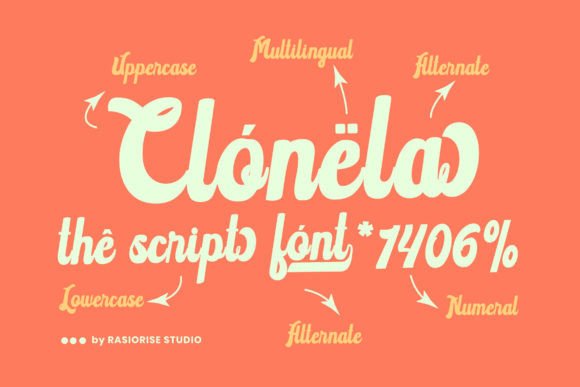
Introducing Clonela Font: The Perfect Retro Script Font for Elegant Wedding Designs
When it comes to designing elegant and romantic wedding invitations, RSVP cards, and thank-you notes, the right font can make all the difference. That’s where Clonela Font comes in – a beautiful retro script font that’s perfect for creating stunning wedding designs. In this article, we’ll take a closer look at Clonela Font, its features, and how you can use it to create breathtaking wedding designs.
What is Clonela Font?
Clonela Font is a retro script font that’s inspired by the classic scripts of the past. Its elegant and flowing lines make it perfect for designing wedding invitations, RSVP cards, and thank-you notes that exude romance and sophistication. The font is designed to be highly legible, making it easy to read and understand, even at small sizes.
Perfect for Wedding Designs
Clonela Font is specifically designed with wedding designs in mind. Its elegant and romantic style makes it perfect for creating beautiful wedding invitations, RSVP cards, and thank-you notes. The font can be used to add a touch of sophistication and elegance to any wedding design, making it a must-have for designers and DIY brides alike.
- Wedding Invitations: Use Clonela Font to create stunning wedding invitations that set the tone for the big day.
- RSVP Cards: Add a touch of elegance to your RSVP cards with Clonela Font.
- Thank-You Notes: Express your gratitude in style with Clonela Font.
Benefits of Using Clonela Font
So, why choose Clonela Font for your wedding designs? Here are just a few benefits of using this beautiful retro script font:
- Elegant and Romantic: Clonela Font adds a touch of elegance and romance to any wedding design.
- Highly Legible: The font is designed to be highly legible, making it easy to read and understand.
- Versatile: Clonela Font can be used for a variety of wedding designs, from invitations to thank-you notes.
Tips and Tricks for Using Clonela Font
Here are a few tips and tricks for using Clonela Font in your wedding designs:
- Pair with a Sans-Serif Font: Pair Clonela Font with a sans-serif font for a beautiful contrast.
- Use a Soft Color Palette: Use a soft color palette to complement the elegant style of Clonela Font.
- Add Decorative Elements: Add decorative elements, such as flowers or greenery, to enhance the romantic style of Clonela Font.
Clonela Font Details
- Font Type: Retro Script Font
Clonela Font is a beautiful retro script font that’s perfect for designing elegant and romantic wedding invitations, RSVP cards, and thank-you notes. Its elegant and flowing lines make it highly legible and easy to read, while its versatile style makes it perfect for a variety of wedding designs. With Clonela Font, you can create stunning wedding designs that will leave a lasting impression on your guests.